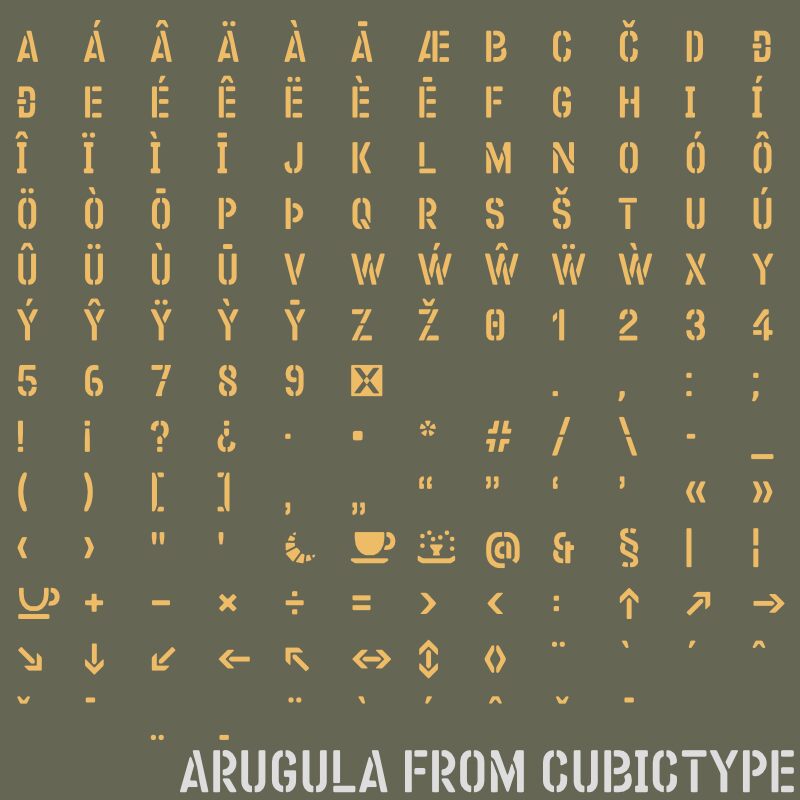
Arugula DAF font by CubicType is a condensed display font, a military and stencil themed design with influences from the geometric genre. The decorative visual with its vintage appeal and art deco inspiration is defined by precisely constructed shapes that give the overall typography a strong personality fit for use in special projects.
This free tape-cut style font can serve in military-related designs, graffiti artwork, and product packaging. Other wide audiences can see this typeface used as part of logo design and branding, magazine covers/titles/headers, posters/flyers/brochures, slogans or headlines inside blog posts and digital/social media advertising.
It is developed from found stenciling on the side of a case of rocket ammunition.
With over 150 glyphs, the repertoire sufficiently supports Welsh, Slovene, and basic English.
Accents in the font can be applied to letters and numbers using the Unicode combining feature.
For wayfinding purposes, arrows are included, along with markers for croissants, coffee, and fountains.